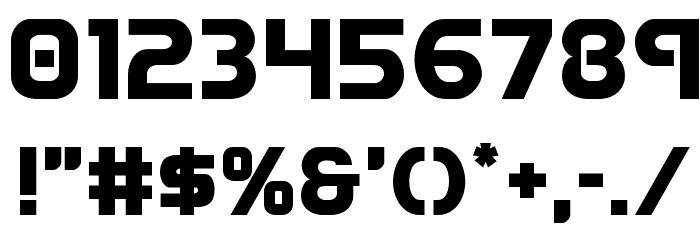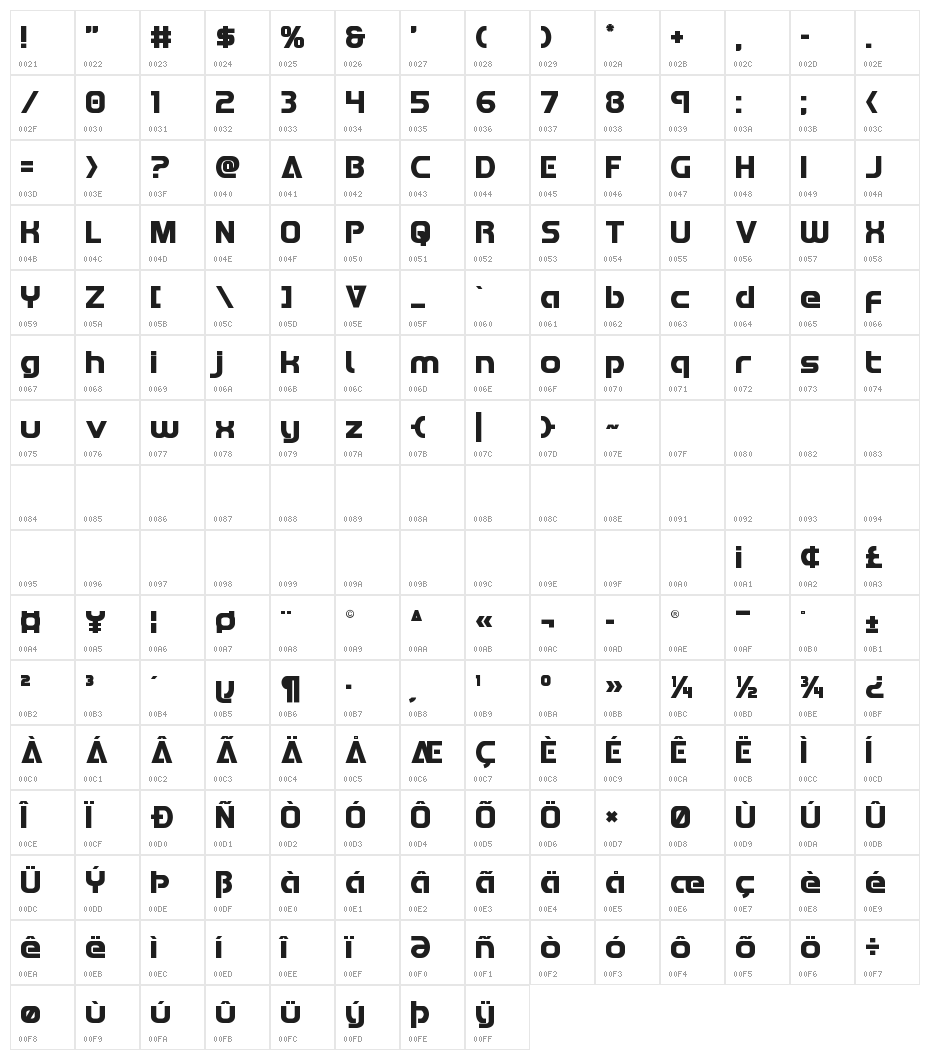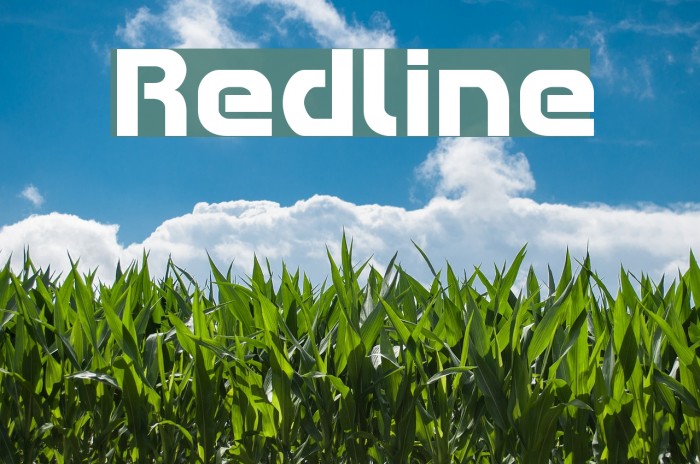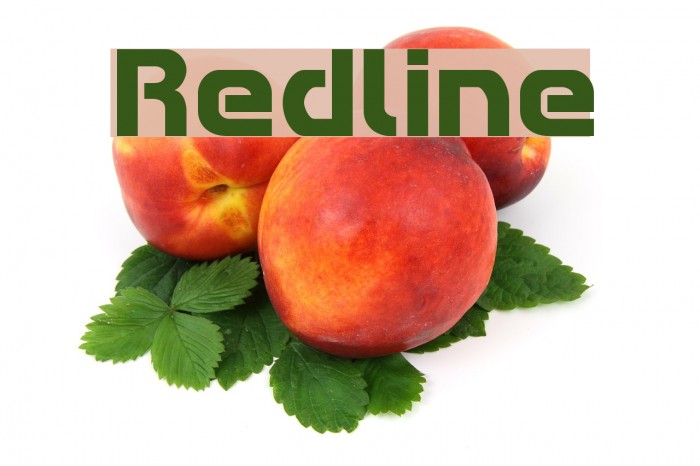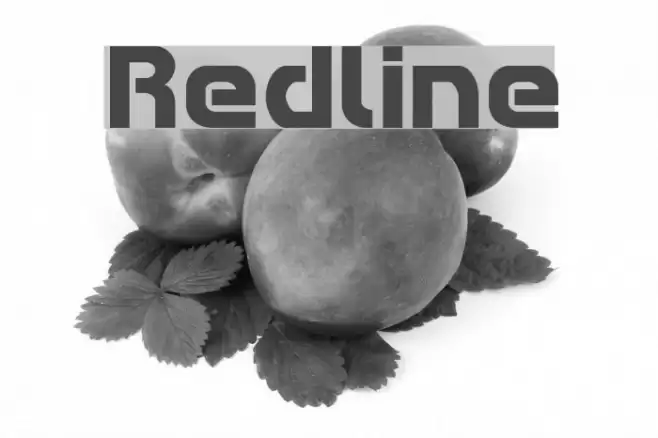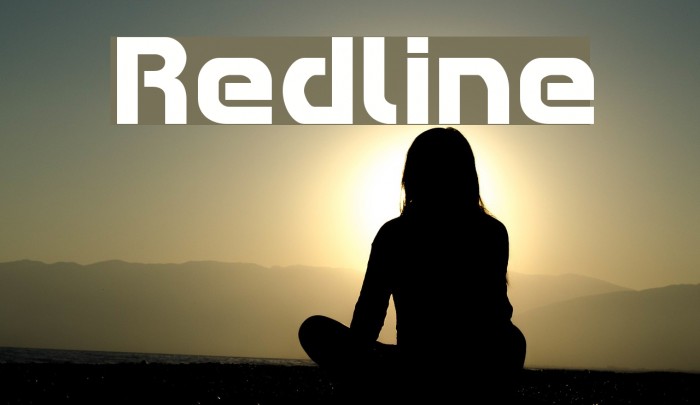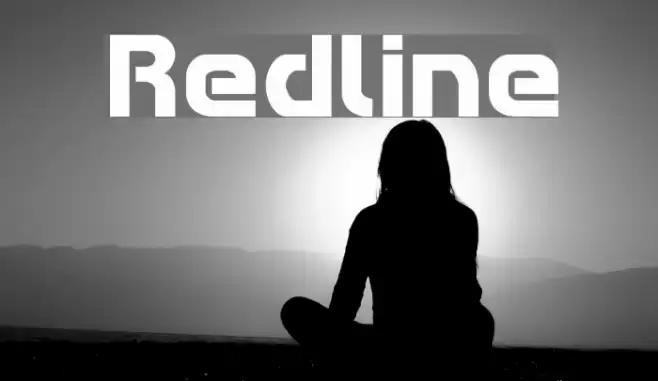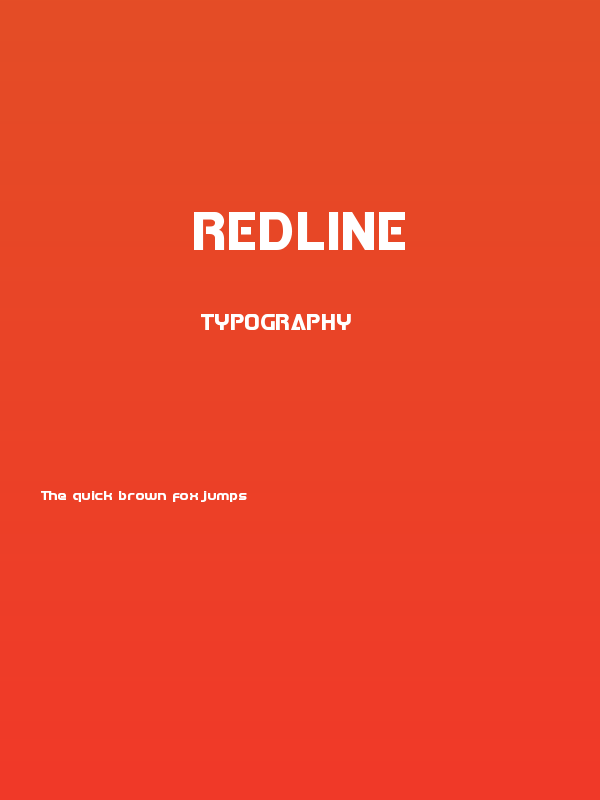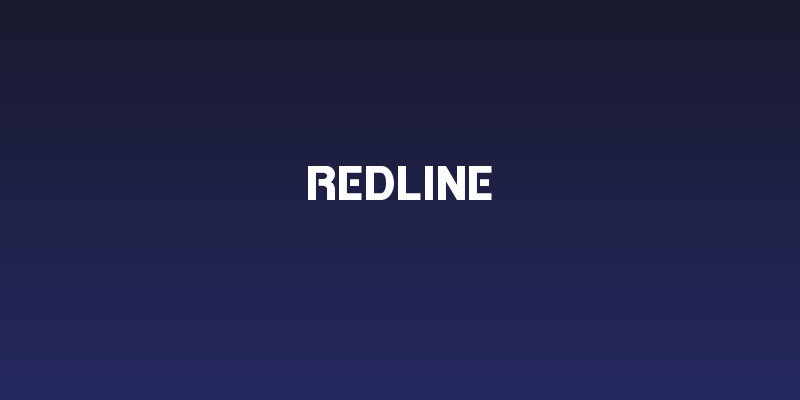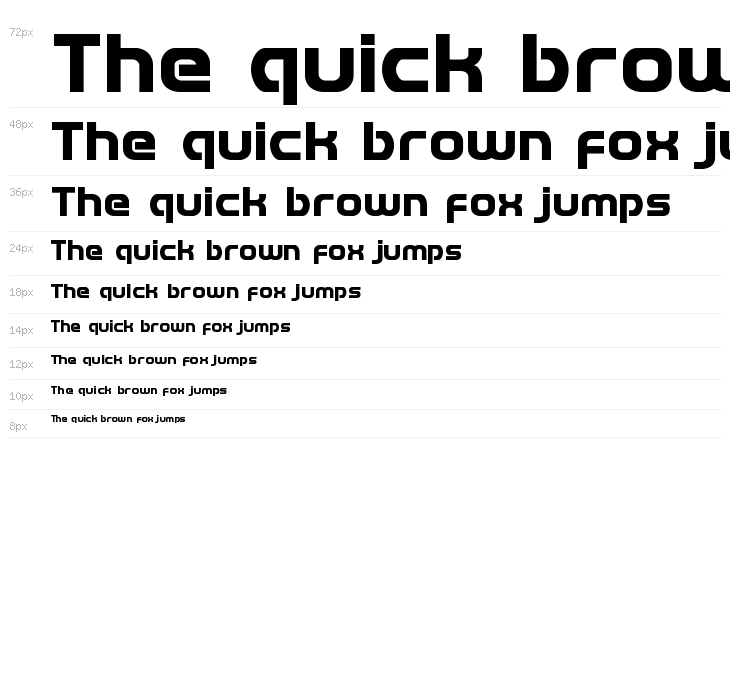
Redline Font
Redline Description
This font exhibits a bold and geometric style with a modern flair. The characters are constructed with strong, thick lines and a uniform stroke width, giving it a robust and impactful appearance. The uppercase letters are particularly striking, with angular and sharp edges that convey a sense of strength and stability. The lowercase letters maintain this geometric consistency, ensuring readability while preserving the font's distinctive style. The numerals are equally bold, with a clear and consistent design that complements the alphabetic characters. Special characters are designed with the same attention to detail, ensuring a cohesive look across all glyphs.
| Proposed Projects | Ideal for branding, headlines, posters, and any project requiring a strong visual impact. |